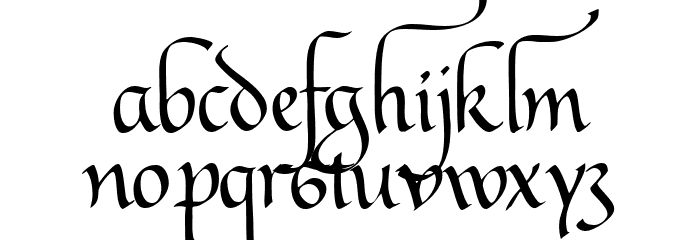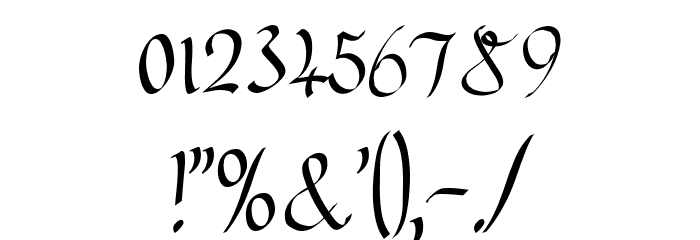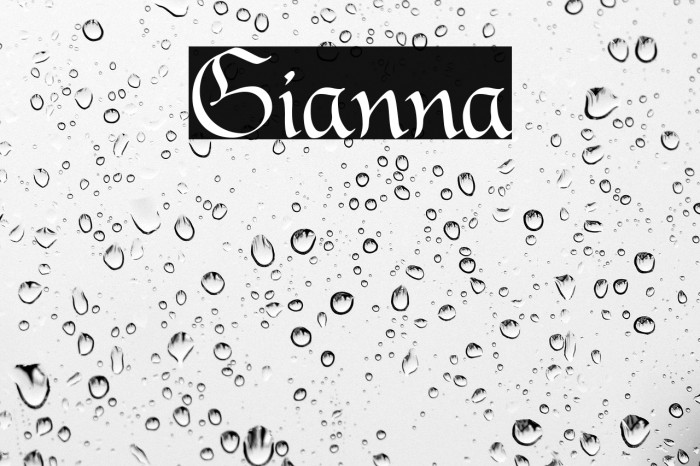
Gianna Font
This font exhibits a classic and elegant style reminiscent of traditional calligraphy. The characters are intricately designed with flowing curves and sharp edges, creating a sense of sophistication and grace. The uppercase letters are particularly ornate, with flourishes that extend beyond the baseline and cap height, adding a decorative touch. The lowercase letters maintain a consistent style, with smooth transitions and a slightly condensed form. Numerals and special characters are crafted with the same attention to detail, ensuring a cohesive appearance across all glyphs. The overall design is both artistic and readable, making it suitable for projects that require a touch of elegance and refinement.
An elegant, calligraphy-inspired font with ornate details and flowing curves.
- Proposed Projects: Ideal for wedding invitations, formal event programs, luxury branding, and artistic book covers.
- Overall Style: Classic
- Use Case: Logos, Headlines, Decorative text